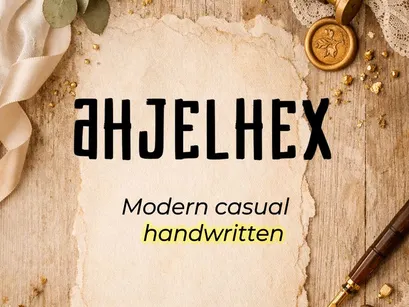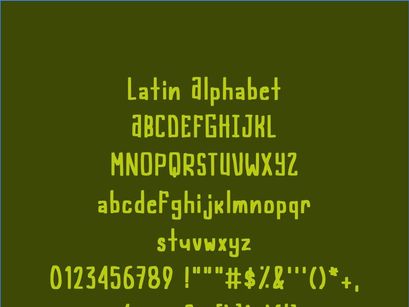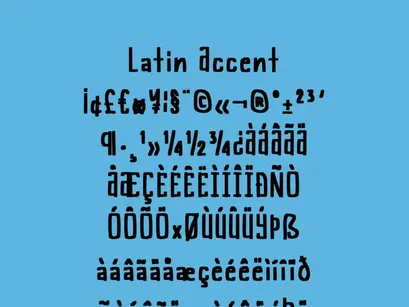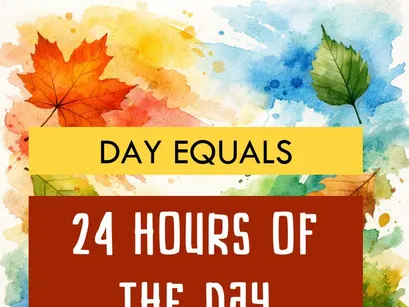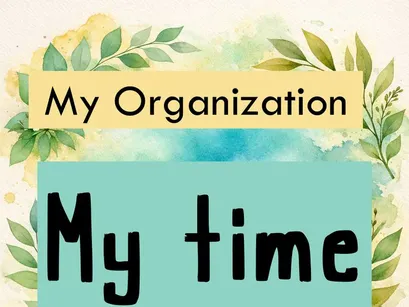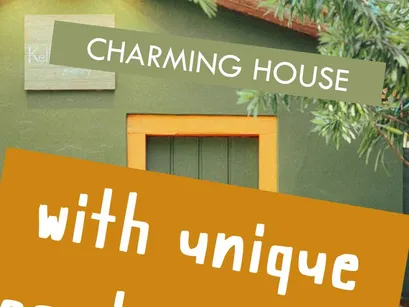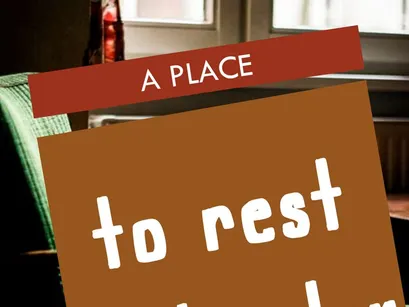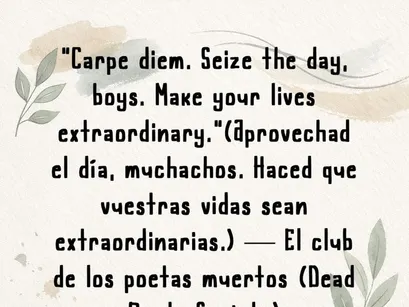
AHJELHEX is a modern, casual handwritten typeface inspired by natural brushstrokes and the texture of handcrafted paper.
Its style blends boldness with fluidity, making it ideal for projects that call for a human, authentic touch—such as agendas, planners, covers, artistic branding, invitations, or digital content.
Full Latin alphabet (uppercase and lowercase)
Accented characters and basic symbols
💛 With its clean, expressive strokes, AHJELHEX brings personality and a balance between the modern and the handcrafted—perfect for creative, natural designs.